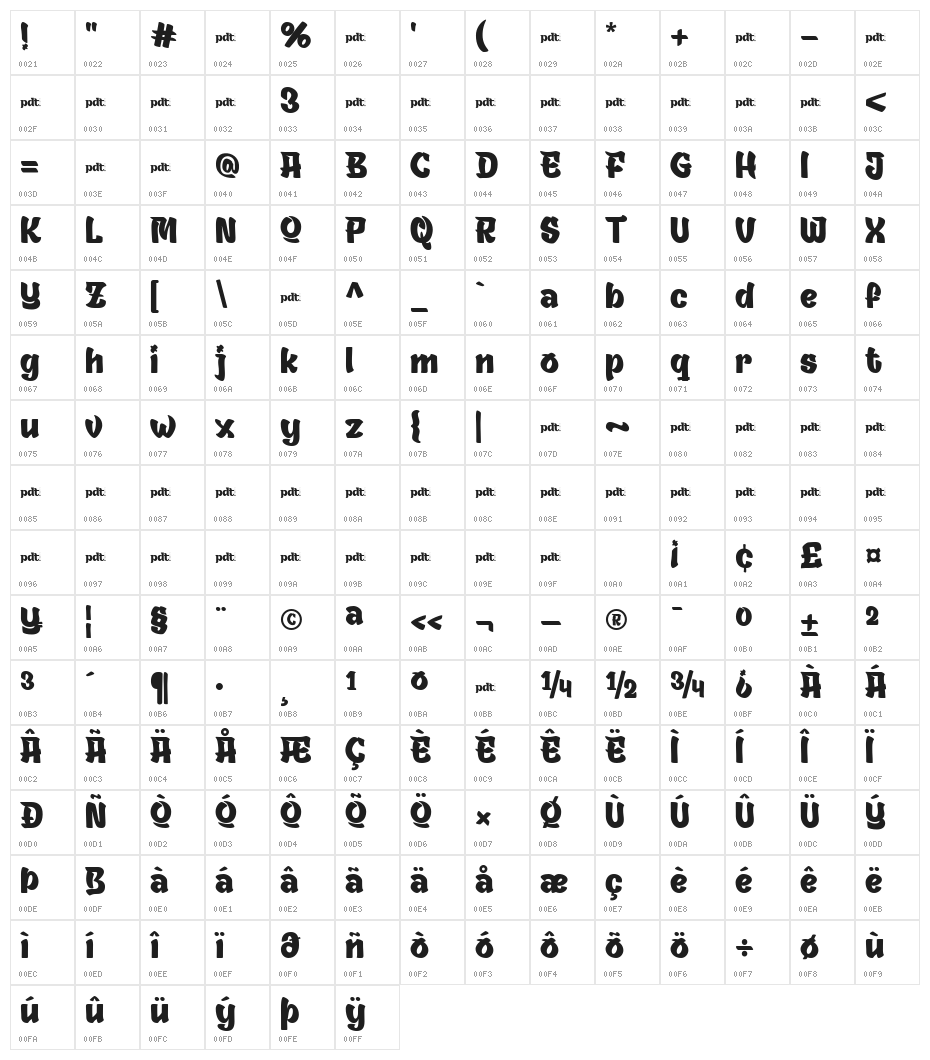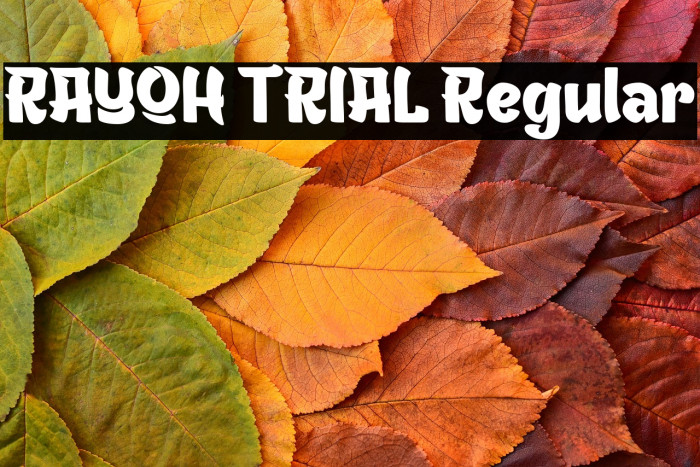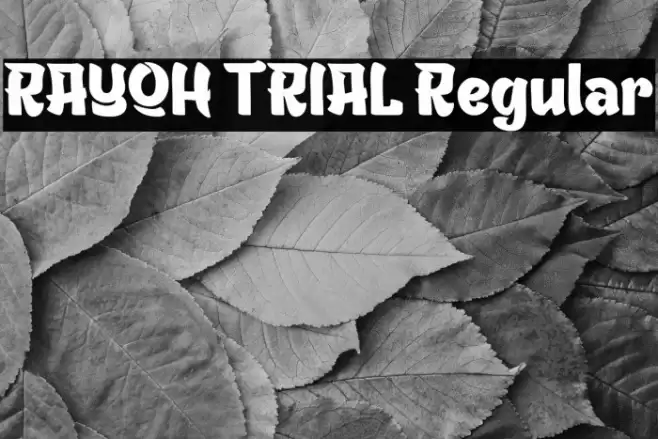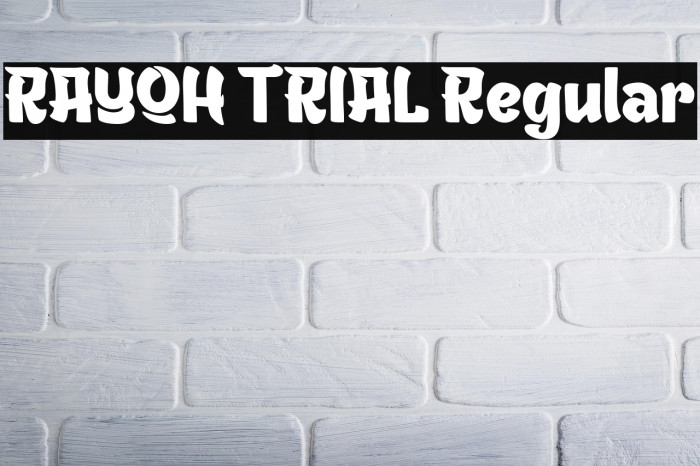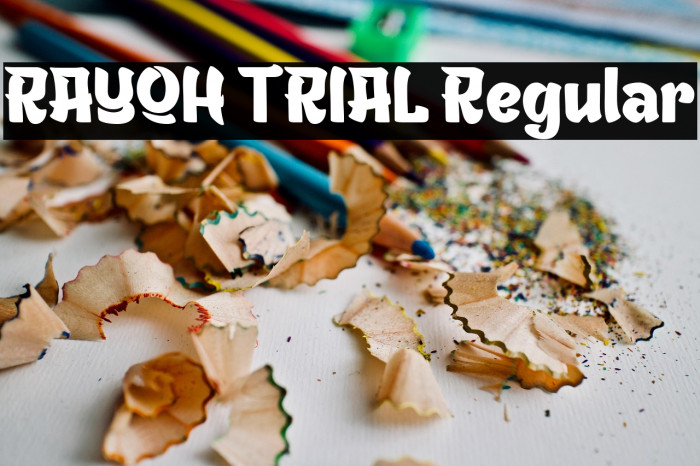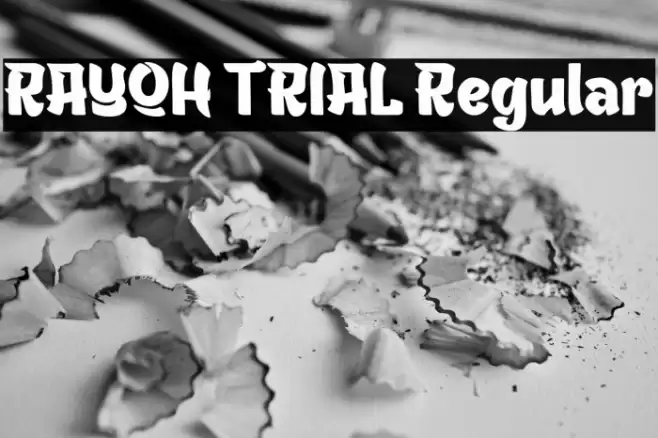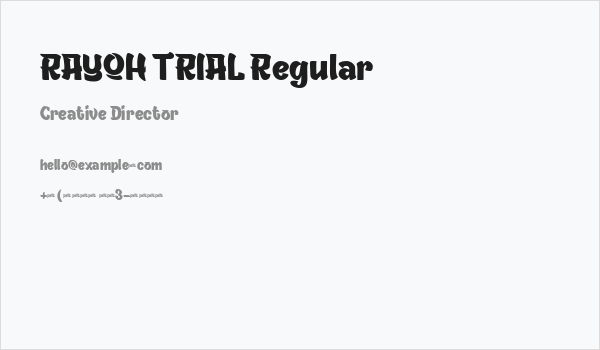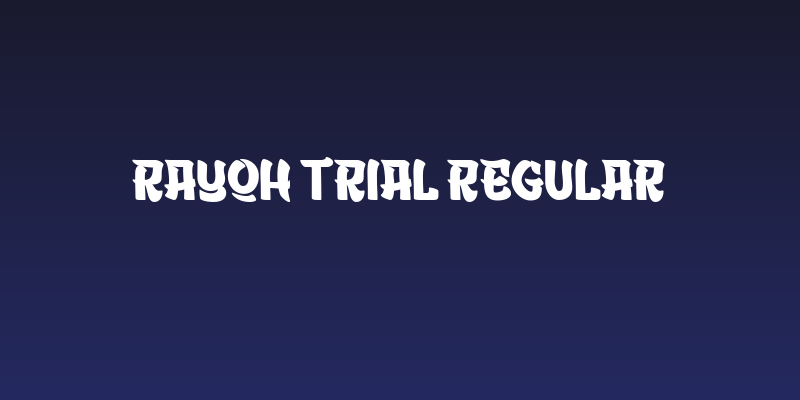
RAYOH TRIAL Regular Font
RAYOH TRIAL Regular Description
This font features a bold and playful design with a strong presence. The characters are thick and rounded, giving them a friendly and approachable appearance. The uppercase letters have a unique, slightly whimsical style with exaggerated serifs and curves, while the lowercase letters maintain a consistent, rounded form. The numbers and special characters follow the same bold and playful aesthetic, making them stand out. The overall design is eye-catching and suitable for creative projects that require a fun and engaging typeface.
| Overall Style | Playful, Fun, Whimsical |
| Proposed Projects | Ideal for children's books, playful branding, posters, and creative advertising campaigns. |